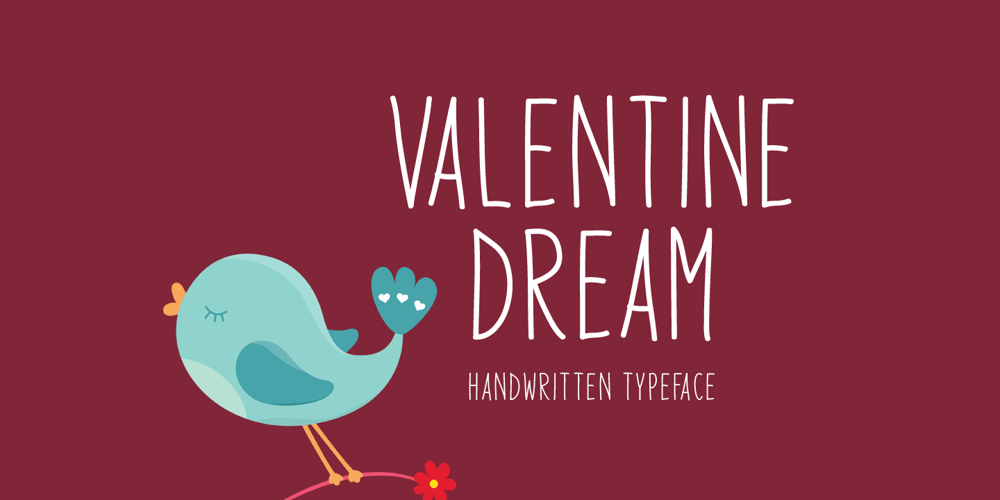
Valentine Dream
Valentine Dream font
Valentine Dream Font Family was designed by Md Shohail Bhuian and published by Seemly Fonts. Valentine Dream contains 1 styles and family package options. Valentine Dream is a brand new sweet handwritten font. It will add a romantic touch to any crafting project!